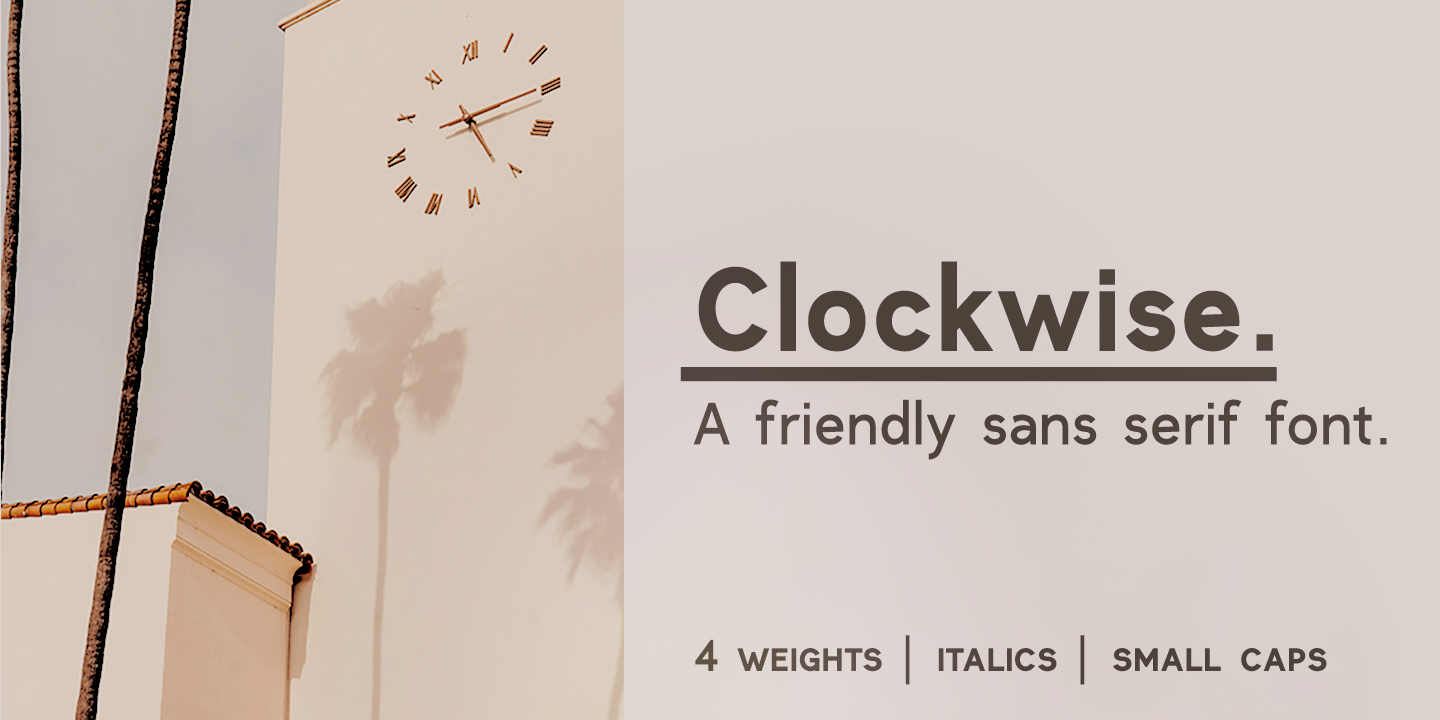
Clockwise Font is ideal for time-conscious design applications including productivity app interfaces, scheduling software branding, time management consulting, vintage watch marketing, appointment booking systems, deadline-focused campaigns, efficiency service branding, and punctual advertising projects that require typography with temporal character and precise timing appeal.
What makes Clockwise Font exciting is its exceptional ability to convey the essence of time and precision through systematically crafted letterforms that embody the rhythmic movement and mechanical precision of clockwork. This distinctive typeface features methodical characteristics with time-inspired details and circular proportions that instantly communicate punctuality, efficiency, and systematic organization. The font's temporal personality and mechanical appeal make it perfect for brands seeking to establish connection with time-conscious audiences and communicate values of precision, reliability, and efficient time management.
Clockwise Font family encompasses multiple weights and temporal variations designed for comprehensive time-focused communication. The family typically includes thin, light, regular, medium, bold, and black weights, complemented by precise italics, systematic alternates, and extensive character sets with time symbols that enhance its mechanical aesthetic and provide maximum temporal impact.
Time management designers consistently select Clockwise Font Free Download for projects requiring typography that embodies temporal precision and systematic efficiency. This methodical typeface delivers exceptional functional appeal across productivity applications, from digital scheduling platforms to physical time management tools, ensuring consistent brand messaging with unmistakable temporal authority and systematic charm. The font's precisely crafted letterforms maintain excellent readability while delivering the efficient presence that time-focused brands demand. Productivity-oriented agencies worldwide rely on this systematic typeface to communicate brand values of punctuality, efficiency, and temporal excellence. Master time with Clockwise Font and create compelling visual communications that resonate with audiences who appreciate precise timing, systematic organization, and the valuable importance of making every moment count in our time-conscious world.